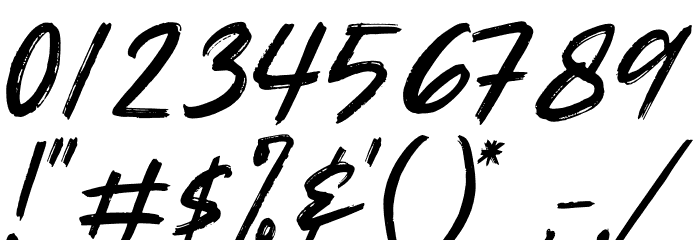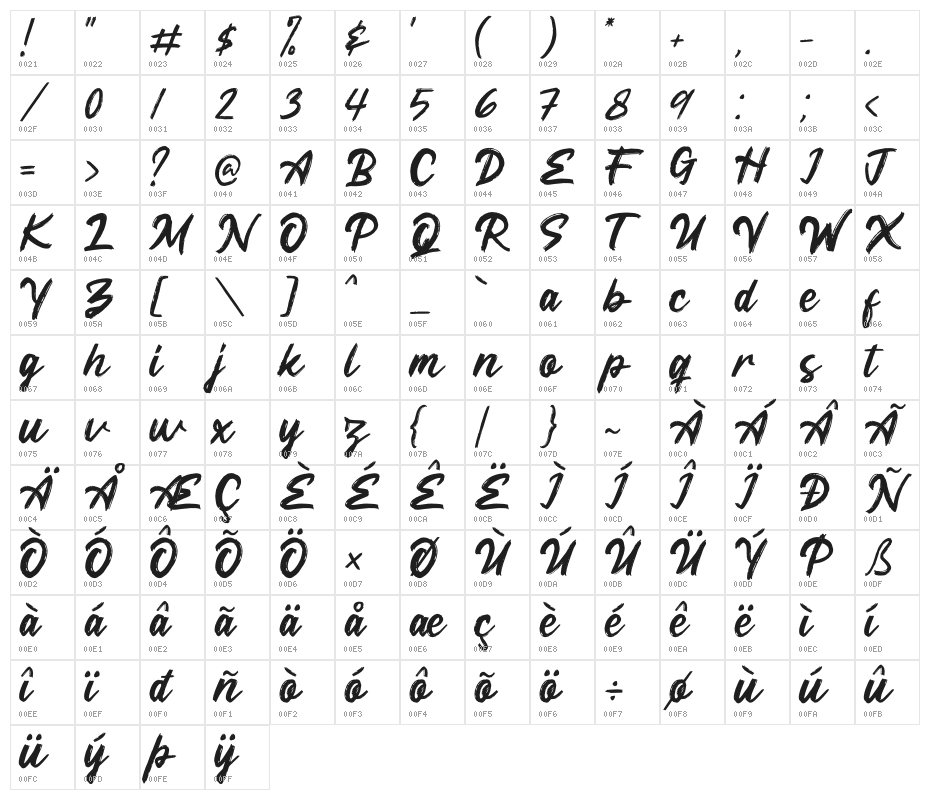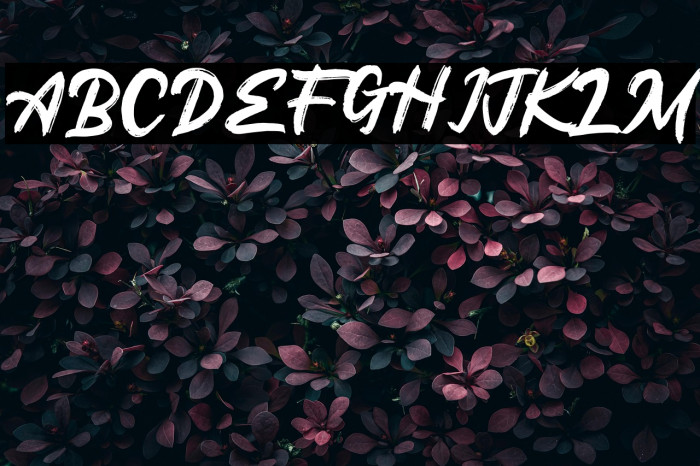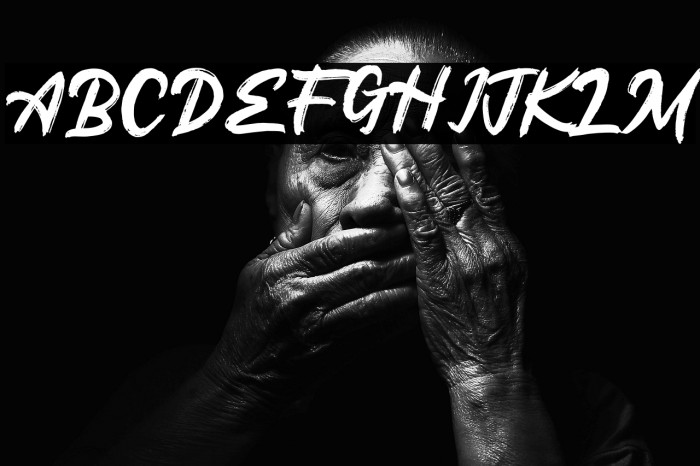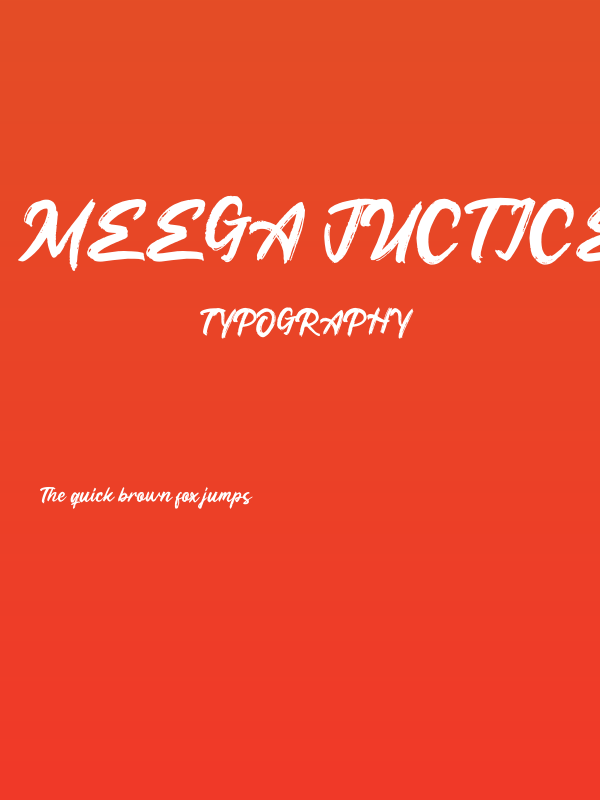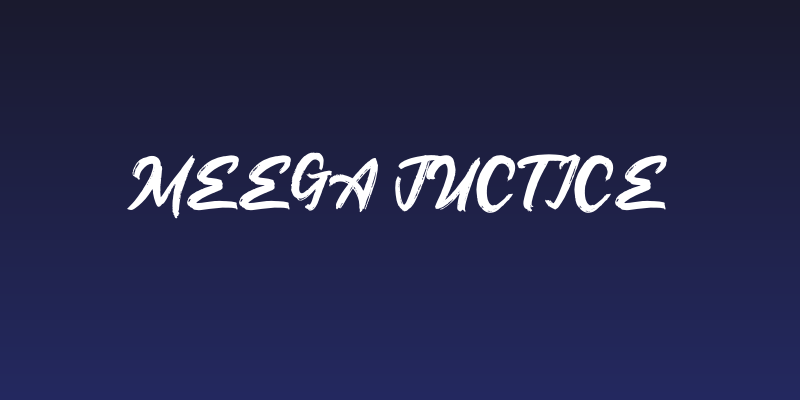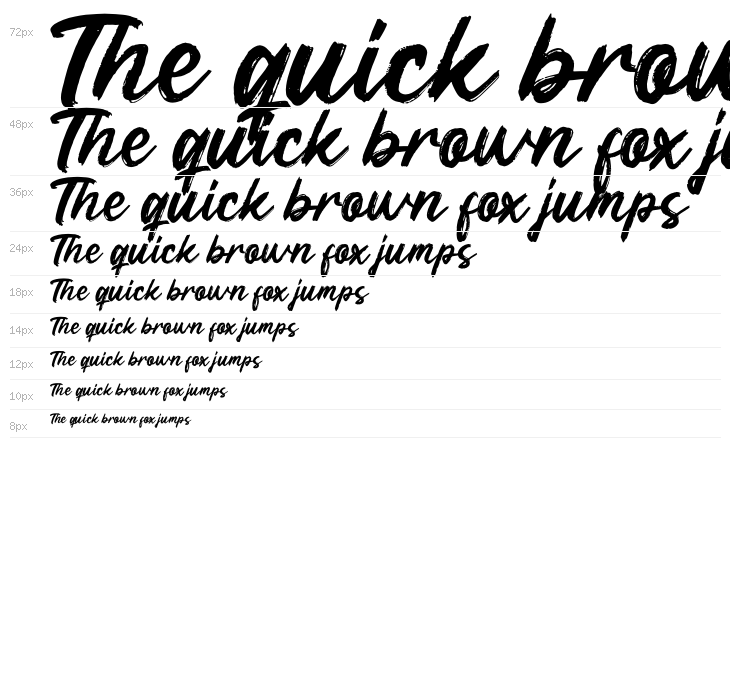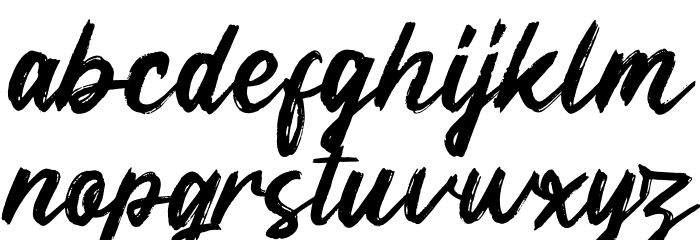
Meega Juctice Font
Meega Juctice Description
This font features a bold, expressive script style with a hand-painted appearance. The strokes are thick and dynamic, giving it an energetic and artistic flair. Each character is crafted with a sense of movement, as if drawn with a brush, which adds a personal and informal touch. The uppercase letters are slightly larger and more pronounced, while the lowercase letters maintain a consistent flow. The numbers and special characters complement the overall style, maintaining the same brush-like texture. This font is ideal for projects that require a bold statement or a creative, artistic touch.